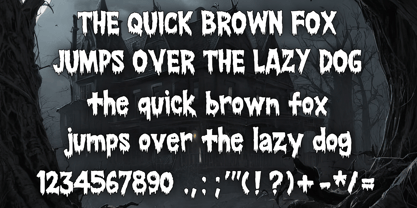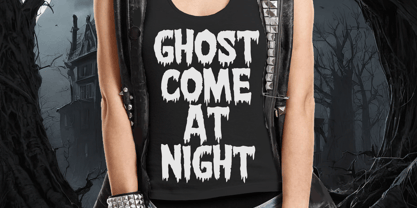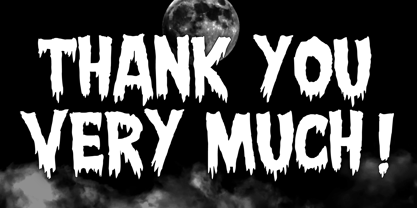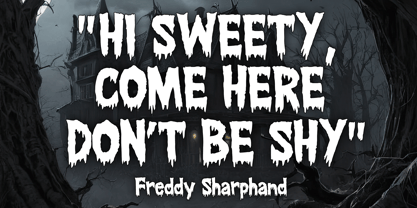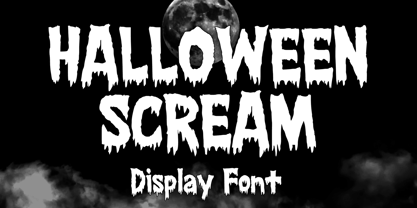
Halloween Scream
The Halloween Scream Font Family was designed by Gabriel Valentinus and published by Mvmet. Halloween Scream contains 1 styles. More about this family
Introducing Halloween Scream, a riveting horror font that drips with a chilling allure. Imbued with the raw essence of classic horror flicks, eerie comics, and the thundering beats of Metal music, it’s more than just a typeface - it's a call to the macabre. Halloween Scream is the go-to font for everything horror and Halloween related. Envision it adorning t-shirts or elevating your terrifying novel's designs. Picture it bringing a spooky flair to your Halloween party decor, adding a ghoulish charm to greeting cards or making stickers and posters unsettling yet impossible to ignore. With Halloween Scream, every creation becomes a chilling spectacle, a love letter to the world of horror. Dive into its spine-chilling embrace and bring the touch of horror to your every design.